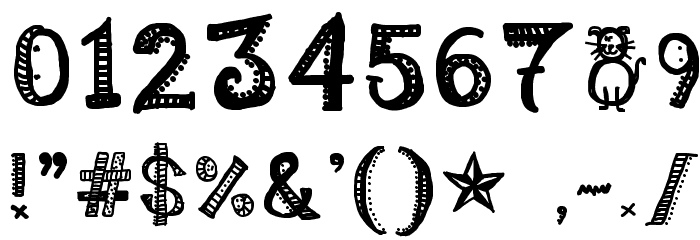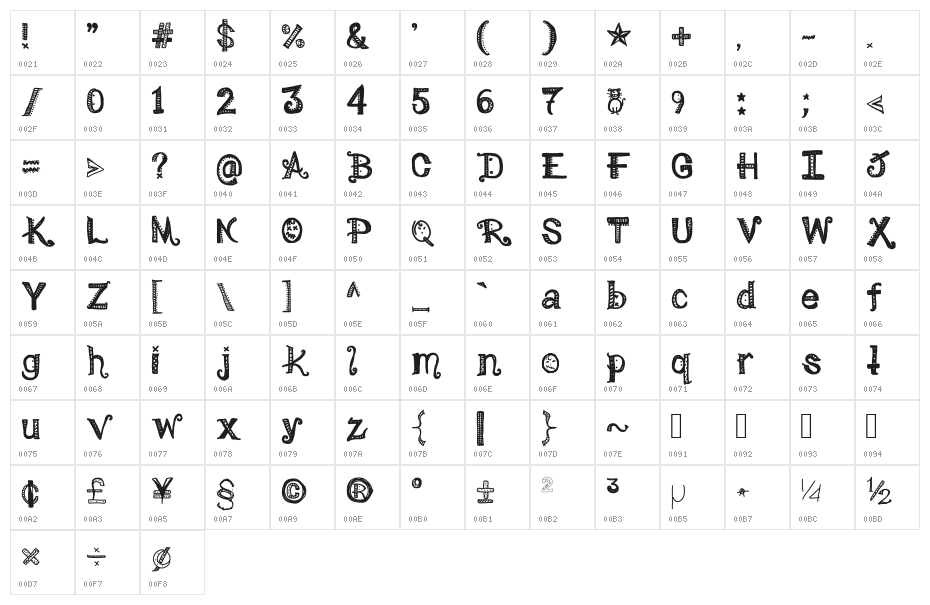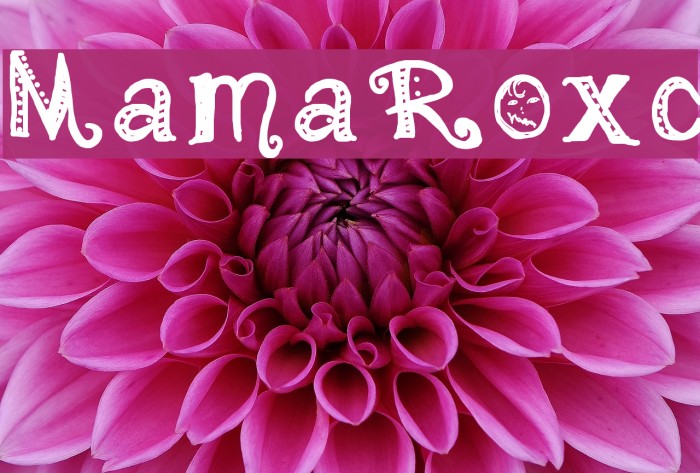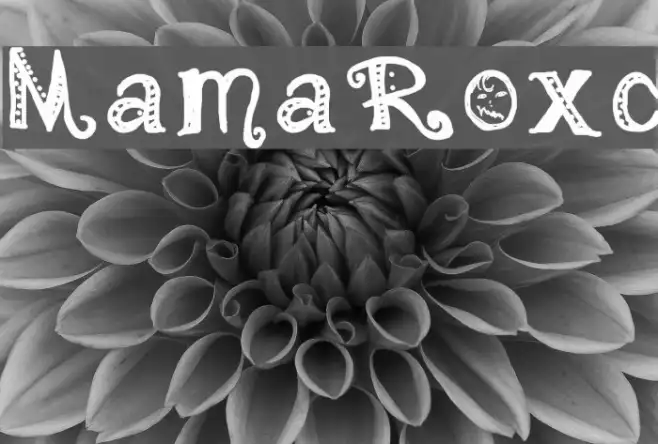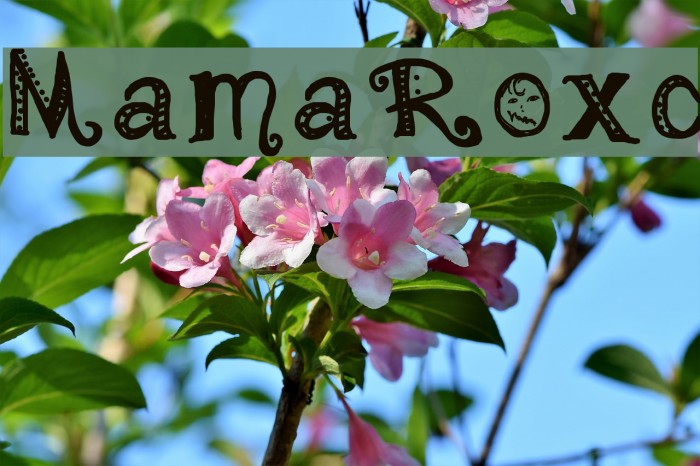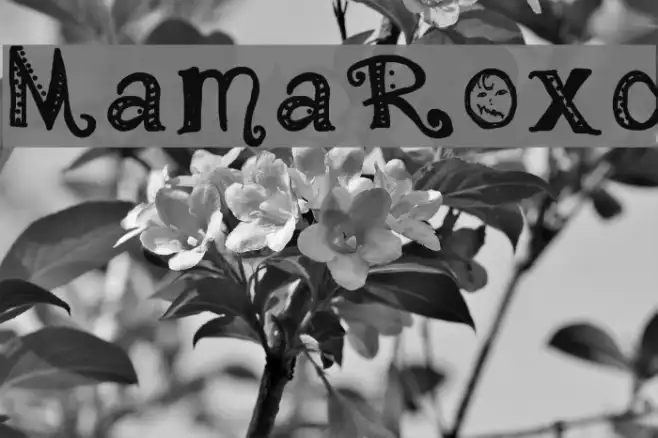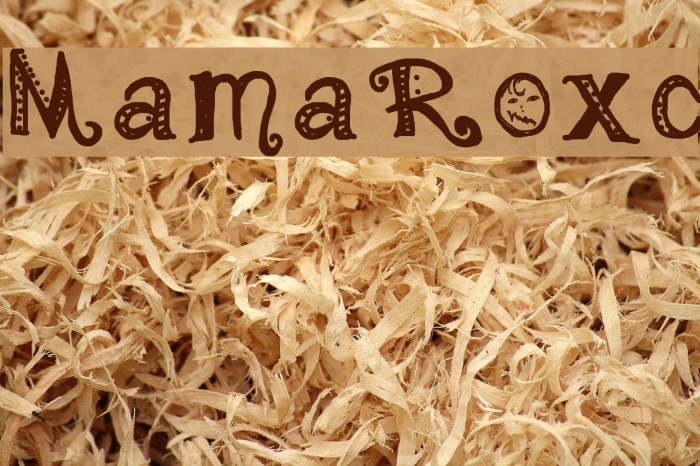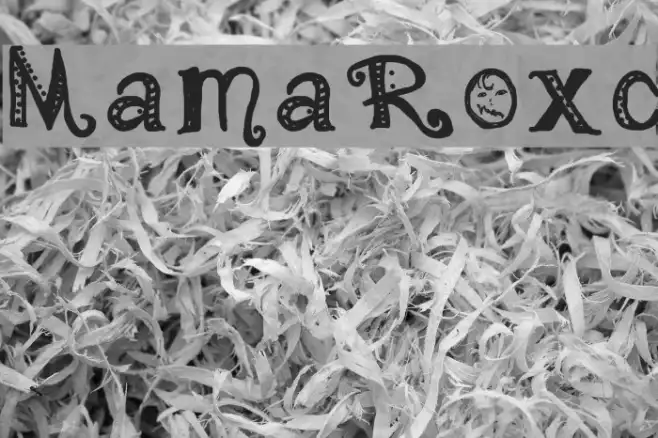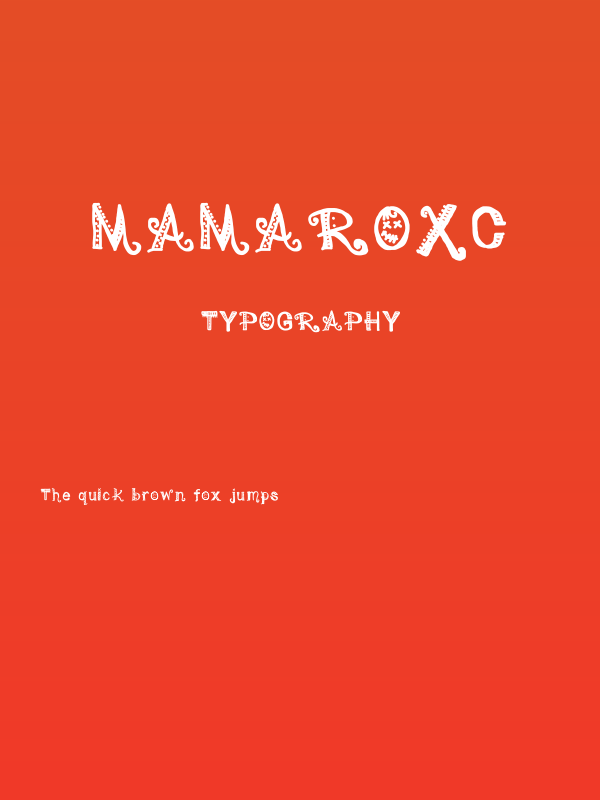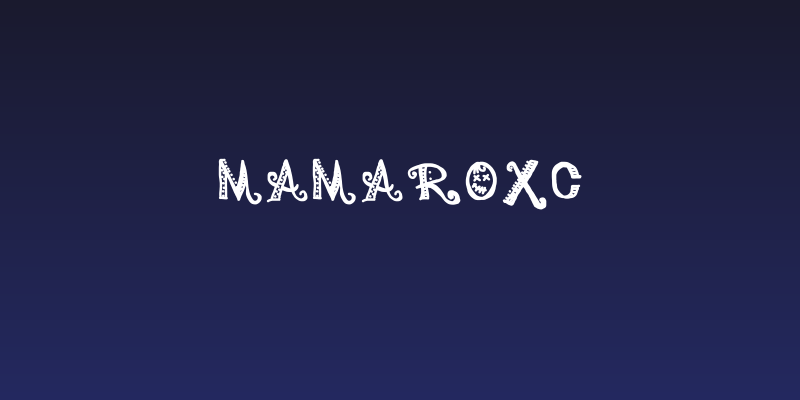
MamaRoxc Font
MamaRoxc Description
This font features a playful and whimsical design, characterized by its decorative elements and unique embellishments on each character. The uppercase and lowercase letters are adorned with dots, stripes, and curls, giving it a lively and animated appearance. The numerals and special characters continue this theme, incorporating quirky details that add to the font's charm. The overall style is reminiscent of a hand-drawn or doodle aesthetic, making it ideal for projects that require a fun and informal touch.
| Overall Style | Whimsical, Playful, Decorative |
| Proposed Projects | Ideal for children's books, party invitations, greeting cards, and playful branding projects. |